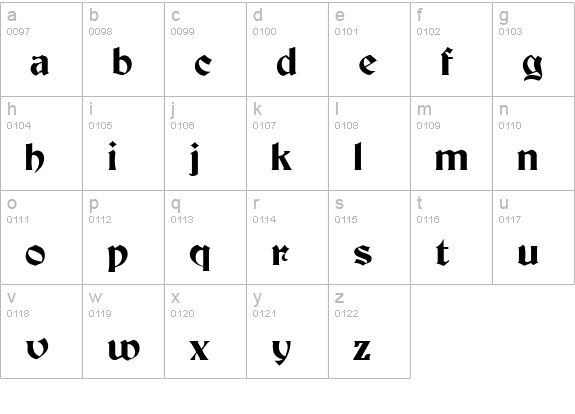
QTBeckman Regular Font Details
QTBeckman Regular is the standard, neutral variant in the QTBeckman typeface family \xE2\x80\x94 well suited to general body text, paragraphs, and standard typographic work.
QTBeckman Regular font is a visually stunning typeface that effortlessly combines classic elegance with modern sophistication. Its clean lines and balanced proportions make it a versatile choice for a wide range of design projects, from invitations and logos to headlines and body text. This font boasts a timeless appeal that is sure to captivate any audience. With its subtle curves and sharp edges, QTBeckman Regular exudes a sense of refinement and professionalism. The letters are meticulously crafted, ensuring legibility and readability at any size. One of the standout features of QTBeckman Regular is its versatility. Whether you want to create a bold and impactful statement or a refined and elegant design, this font has got you covered. Its versatility extends to various design styles, making it suitable for both modern and traditional projects. And the best part? QTBeckman Regular is freely available to download at FontsMarket.com. This means that you can enjoy the beauty and functionality of this font without having to spend a dime. It's a fantastic opportunity to enhance your design projects with a high-quality font, while keeping your budget intact. So, why wait? Download QTBeckman Regular today and elevate your designs to new heights. With its timeless appeal, exceptional craftsmanship, and the added bonus of being free, this font is a must-have for any designer or typographer.